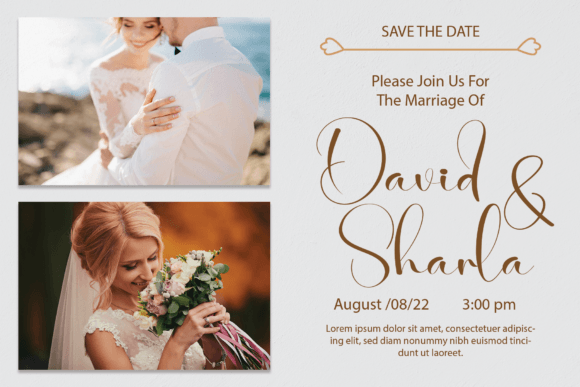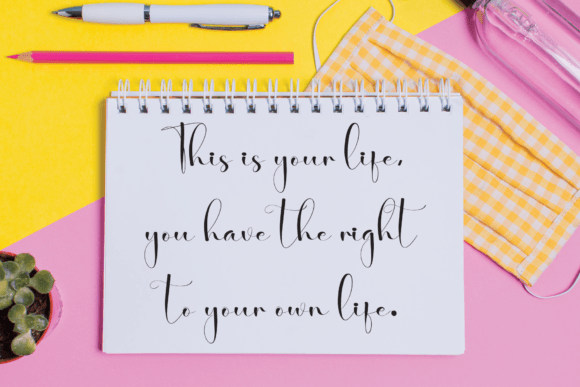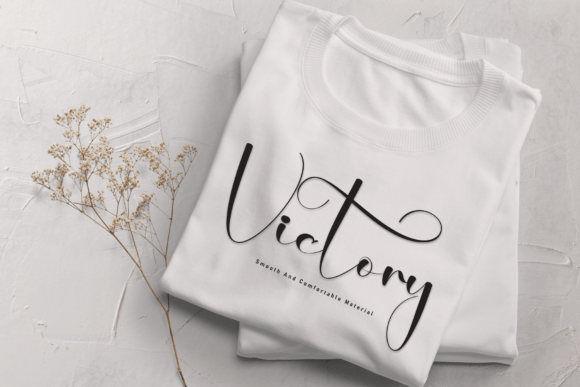
Introduction to Historya Font
There’s something magical about holding a handwritten invitation in your hands, the ink bleeding onto the paper, and the personal touch that comes with it. It’s a moment that sparks imagination and sets the tone for a memorable experience. For designers, this feeling is what drives creativity and inspires new ideas. One font that captures this essence is the Historya Font, a charming handwritten typeface that brings warmth and personality to any design project.
With its smooth, flowing strokes and whimsical character, the Historya Font is a valuable design resource for creatives looking to add a personal touch to their work. Whether you’re working on a high-quality branding project or a creative endeavor with a transparent background, this font is sure to impress. And the best part? It’s available for free download, making it an accessible choice for designers of all levels.
Key Features of Historya Font
- Unique, hand-drawn style with a transparent background, ideal for adding a personal touch to designs.
- Suitable for a wide range of creative projects, from digital art to print materials, thanks to its versatility and high-quality design.
Honest Review: Historya Font
As a designer, I’m always on the lookout for high-quality design resources that can elevate my creative projects. The Historya Font is one such resource that caught my attention.
What works well: ✨ The font has a unique, vintage feel that’s perfect for projects that require a touch of nostalgia. The high-quality design is evident in the intricate details and subtle textures that add depth to the font.
- ✨ The transparent background makes it easy to use with any design, whether it’s a website, social media graphic, or print material.
- ✨ The font is highly customizable, allowing me to adjust the size, color, and style to fit my project’s requirements.
However, there are some limitations to consider: ⚠️ The font may not be suitable for all types of projects, particularly those that require a modern or minimalist aesthetic. Additionally, the font’s complexity can make it difficult to use in certain design applications.
Overall, I’m impressed with the Historya Font’s unique design and high-quality execution. While it may not be perfect for every project, it’s a valuable addition to any designer’s toolkit. Plus, the free download makes it an even more attractive option for creatives on a budget.
Introduction to Historya Font
Historya Font is a high-quality, free design resource that offers a unique and creative touch to any project. Its transparent background makes it an ideal choice for overlaying text on images or graphics. With its elegant and sophisticated style, Historya Font is perfect for a wide range of creative projects.
Getting the Most Out of Historya Font
To get the most out of Historya Font, try combining it with other design elements, such as images or graphics, to create a unique and eye-catching design. Experiment with different font sizes, colors, and styles to find the perfect look for your project.
Common Use Cases for Historya Font
Historya Font is perfect for a wide range of creative projects, including:
- Business cards and marketing materials
- Posters and flyers
- Graphic designs and digital art